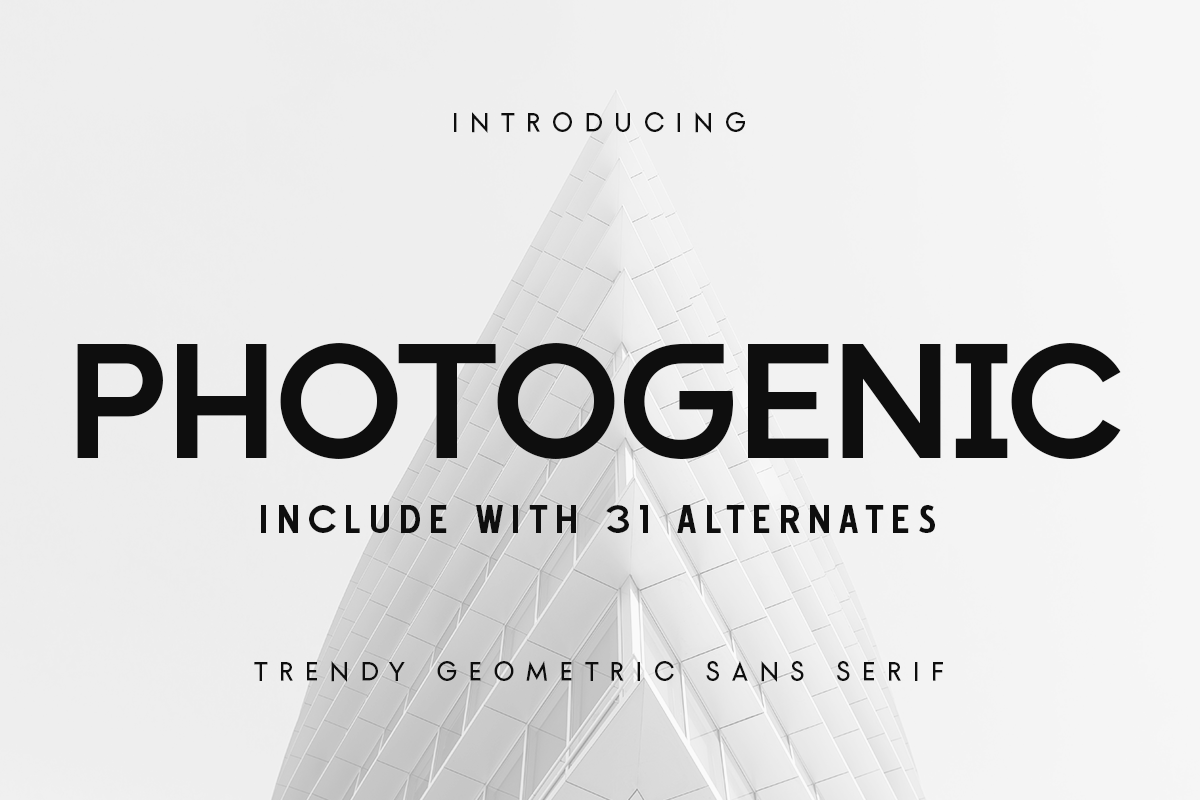
Photogenic
-Trendy Geometric Sans Serif
Photogenic
Photogenic is a Modern Geometric font that created special for Branding, Title and more stand out typography needs, with extra alternative styles that make your design more memorable. It’s so perfect to add your style and headline overview for business, technology, actions, and minimalist theme. And specially for this font, we crafted for minimalist style and modern feels so enjoy to create any project that will show your main idea out.